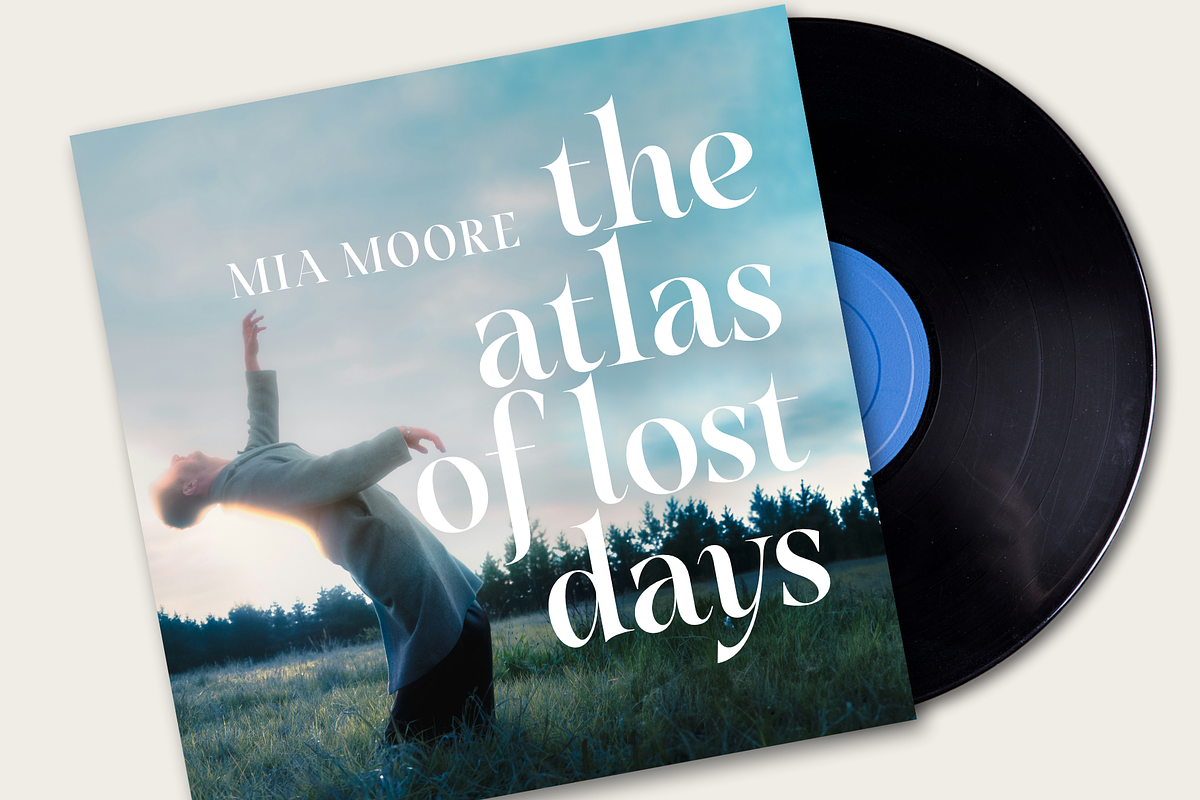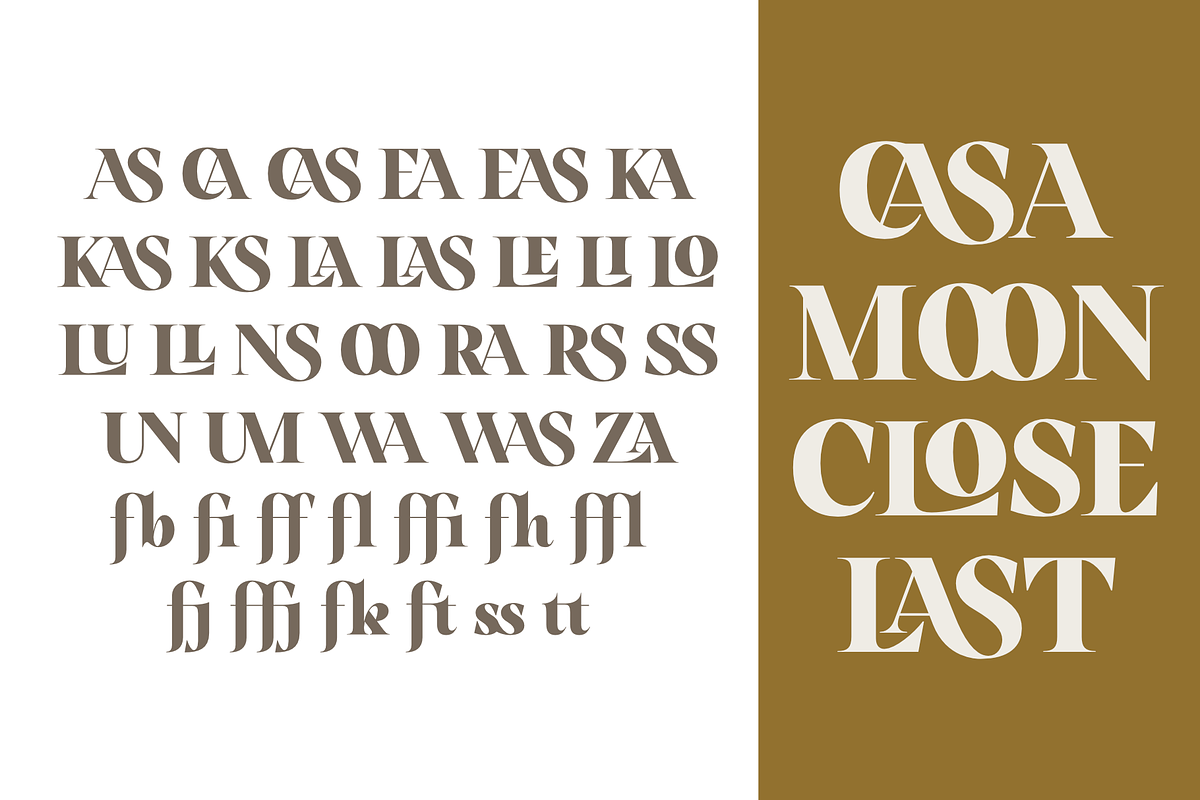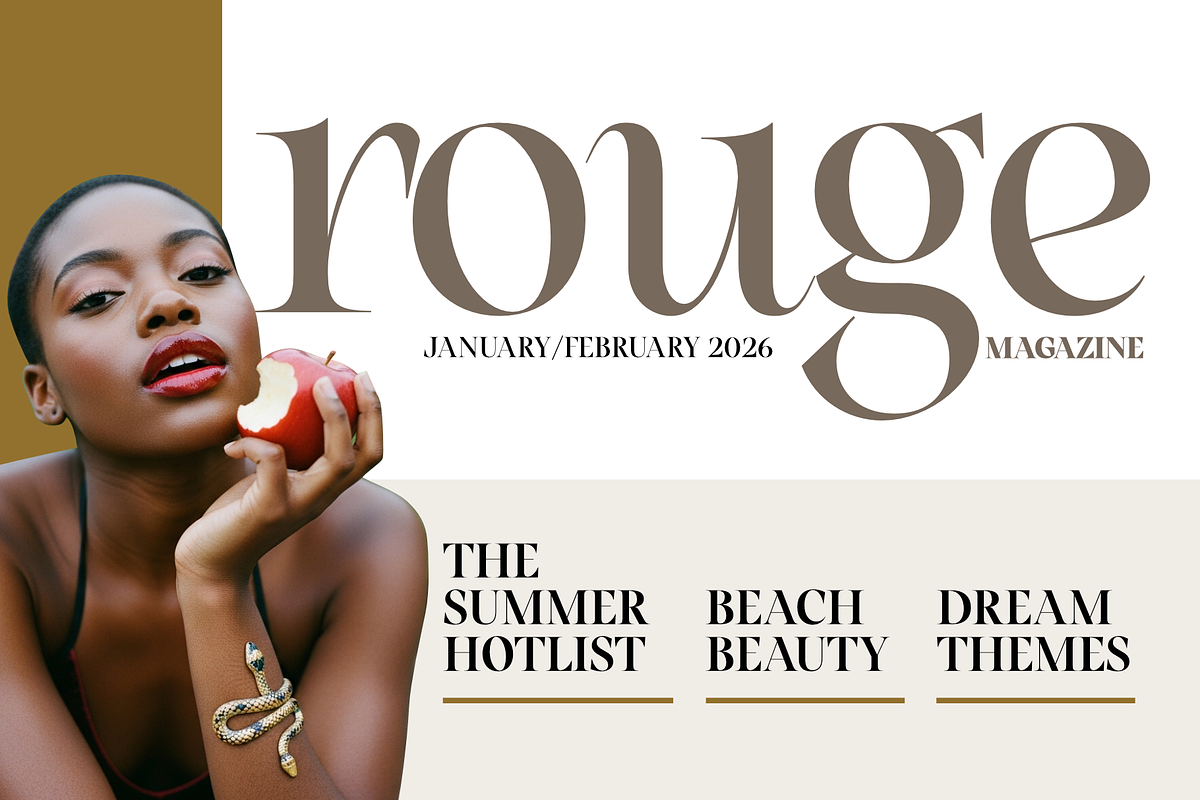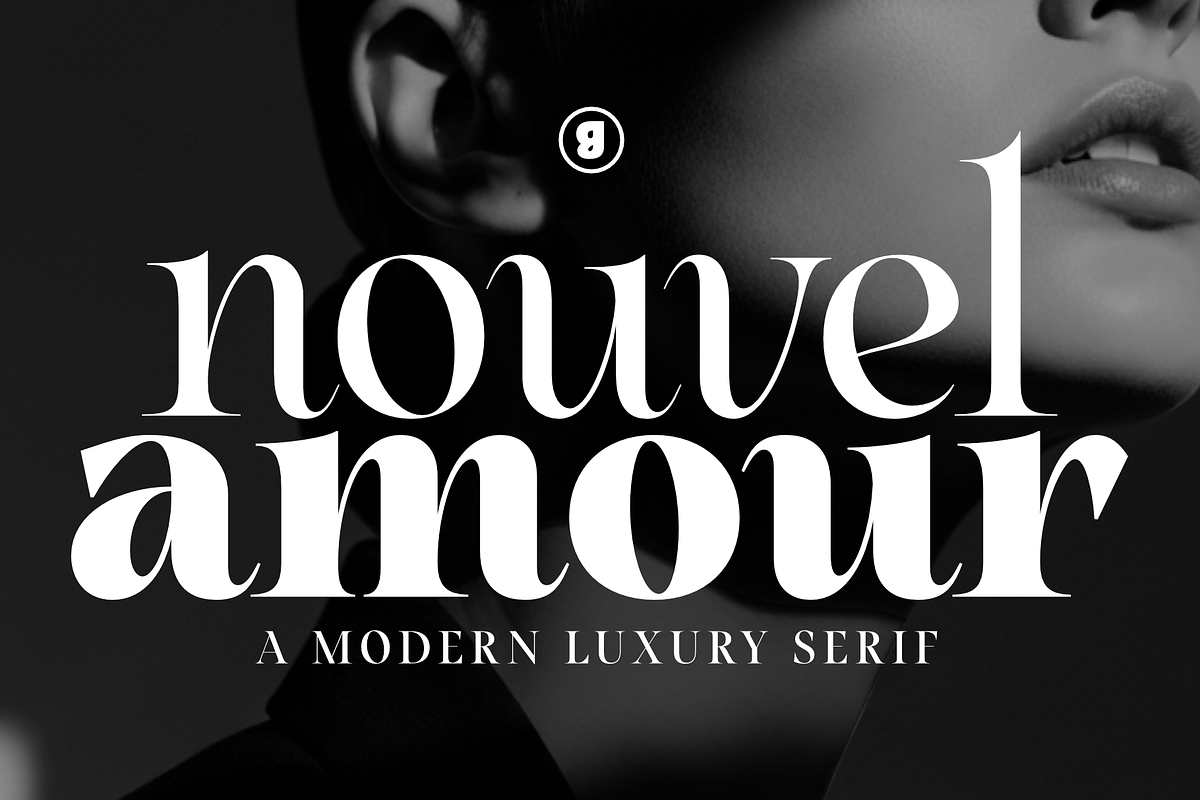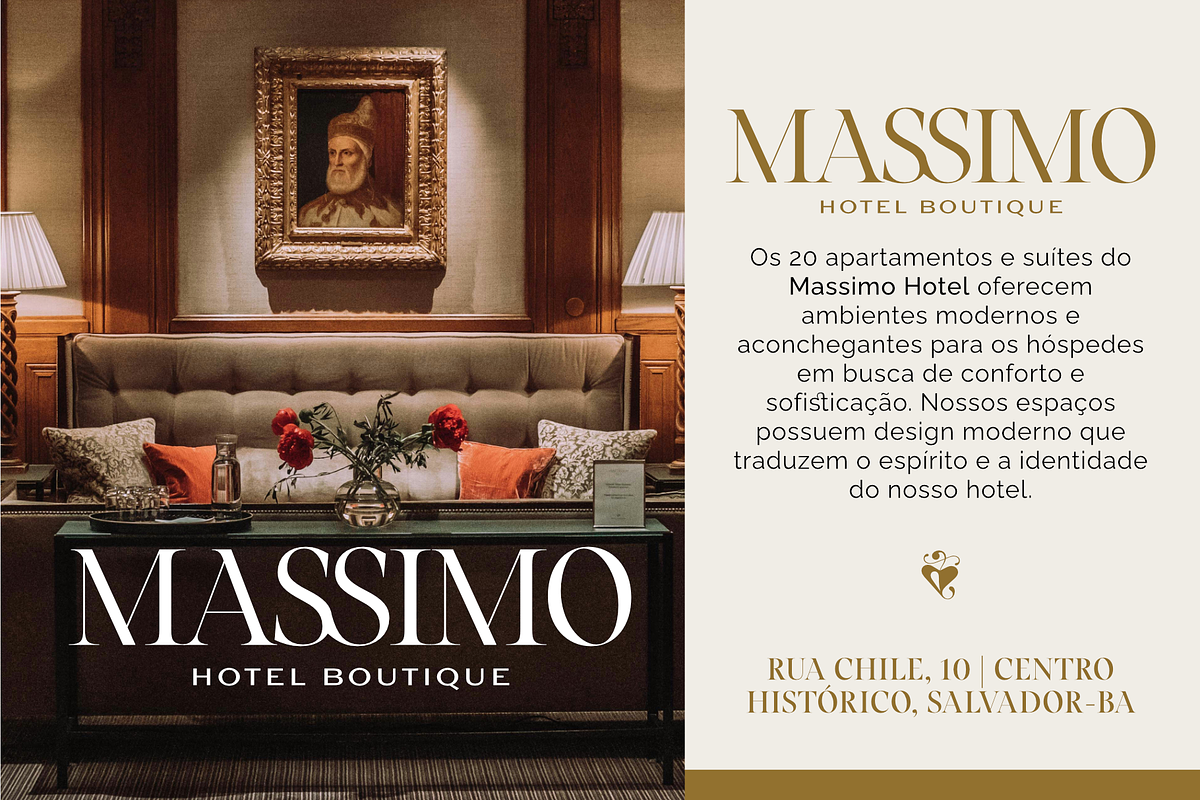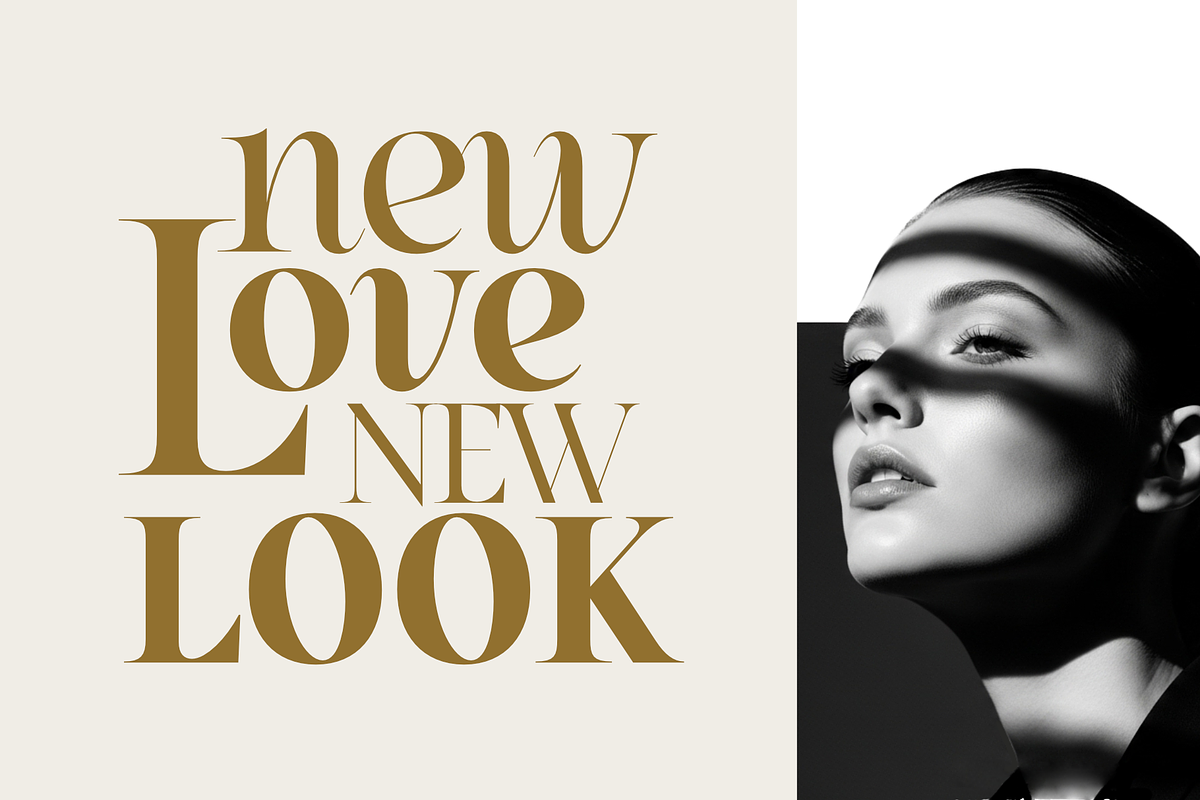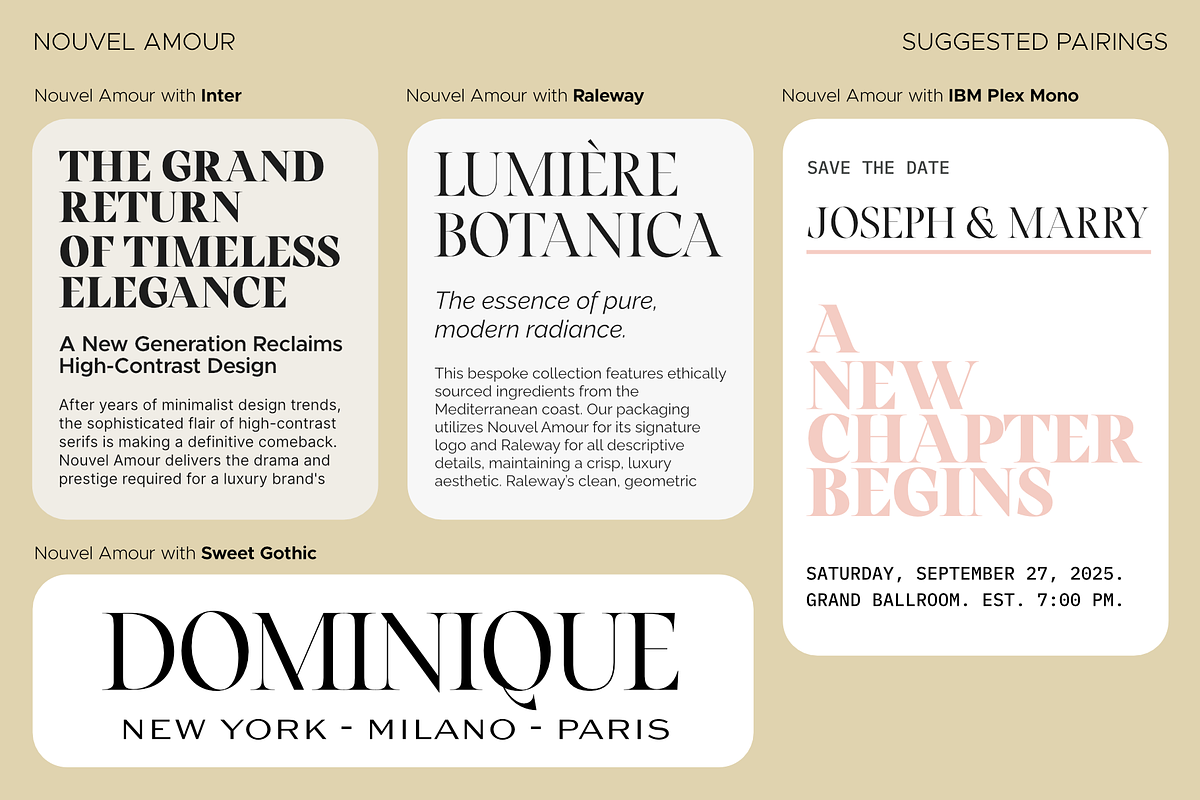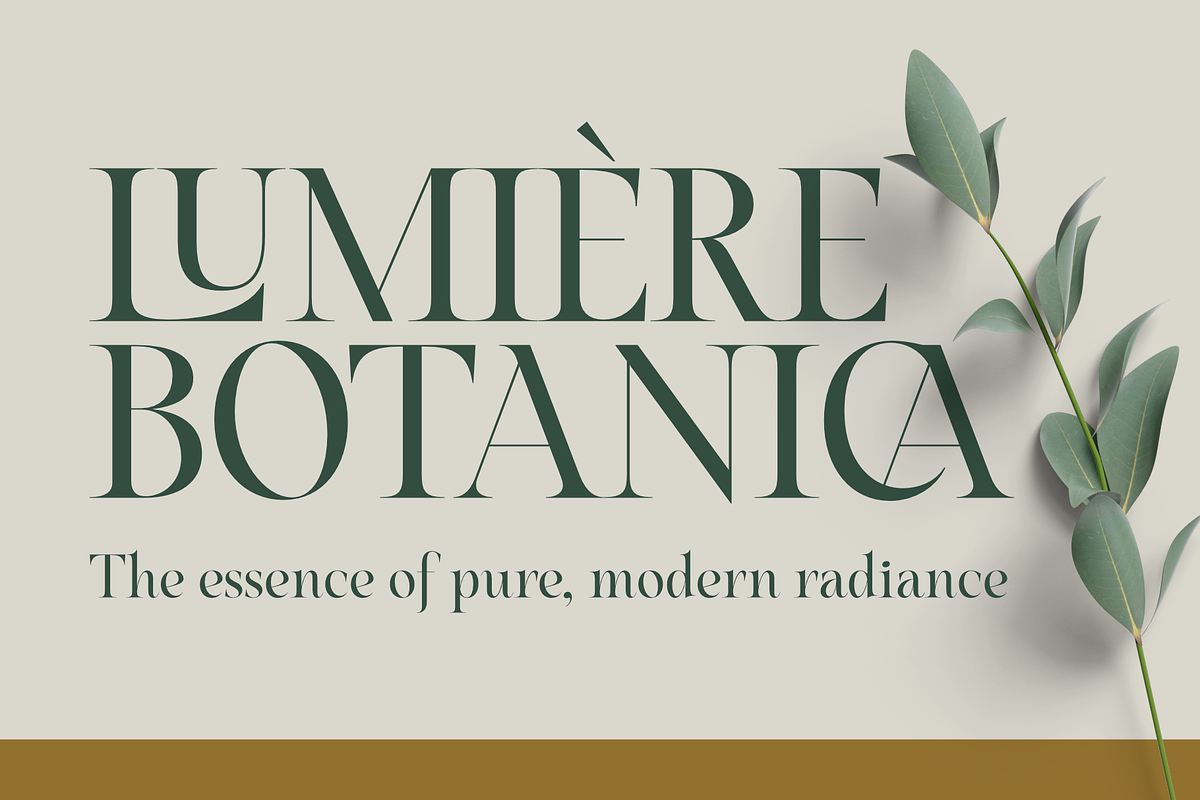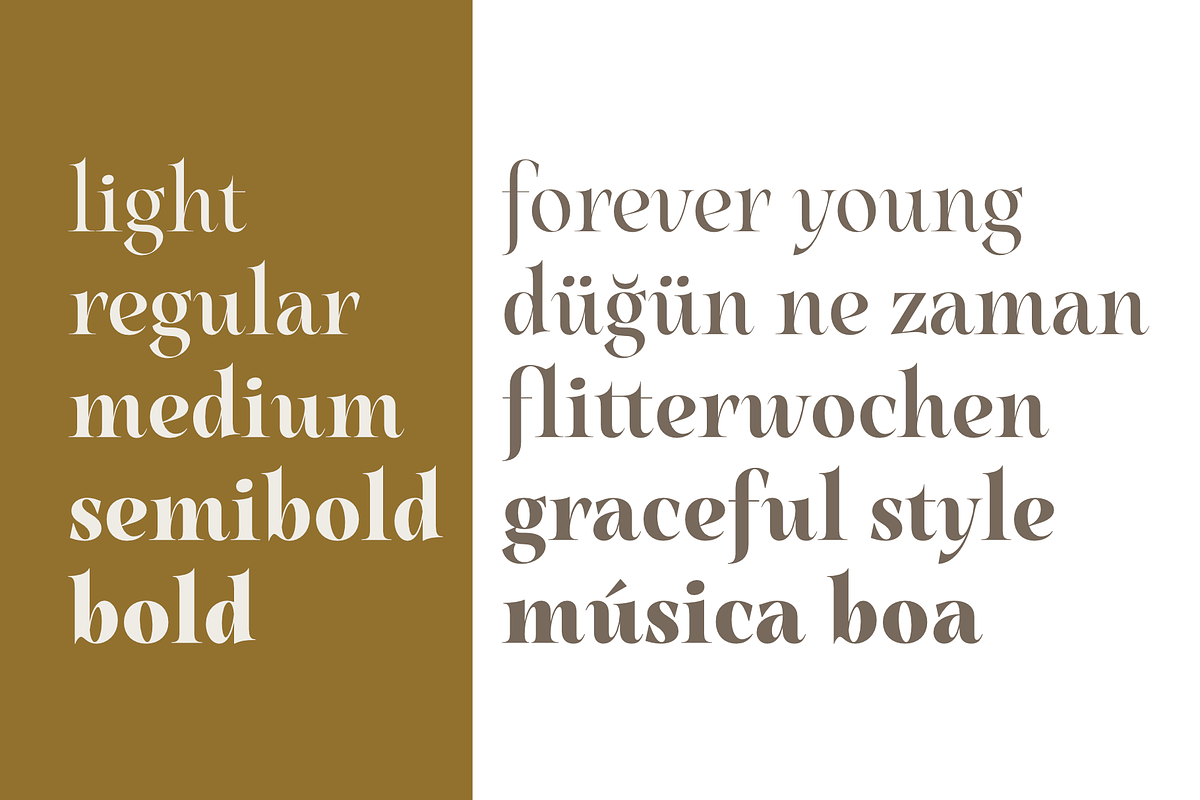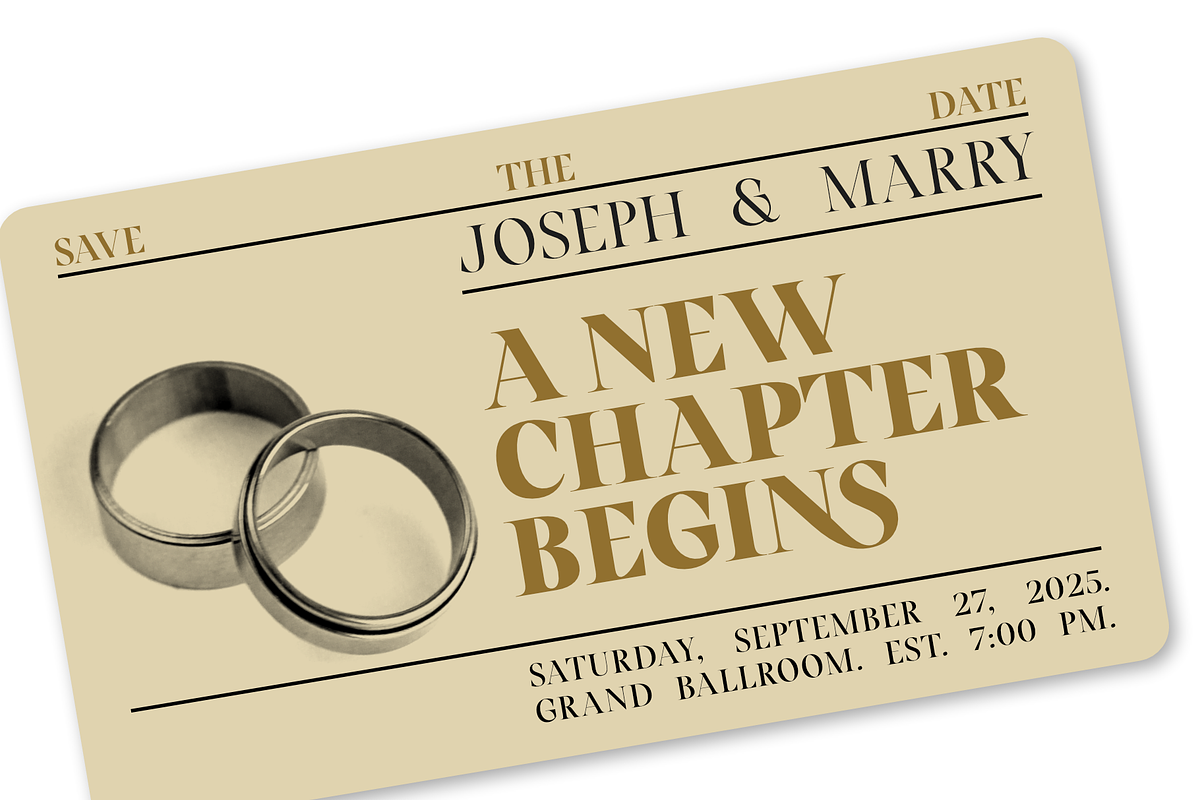
Nouvel Amour – A Modern Luxury Serif
Elevate your designs with the chic, editorial allure of Nouvel Amour.
Meet Nouvel Amour, a high-contrast serif typeface designed for creators who seek immediate sophistication. Balancing classic elegance with a bold contemporary spirit, this font captures the essence of high-fashion magazines and the delicacy of modern romance. Whether you are crafting a distinct brand identity or a memorable wedding suite, Nouvel Amour provides the personality needed to turn short texts and headlines into visual masterpieces.
✨ Why choose Nouvel Amour?
Editorial Aesthetic: With its elegant thin hairlines and impactful thick stems, it is specifically engineered to shine in large sizes (Display), ensuring both readability and style.
Versatile Weights: Available as a complete font family with 5 styles from Light to Bold, allowing you to create perfect visual hierarchy in your layouts and highlight what truly matters
Global Language Support: Don’t let boundaries stop you. Nouvel Amour features an extensive character set supporting multiple languages, including full accentuation for French, German, Spanish, Portuguese, Scandinavian languages, and more.
🎨 Perfect for:
Luxury Branding: Create high-end logos for boutiques, hotels, cosmetics, and jewelry brands.
Editorial Design: Magazine headlines, book covers, and fashion blog layouts.
Wedding & Event Stationery: Invitations, menus, and save-the-dates that require a romantic, refined touch.
Packaging Design: Labels that communicate premium quality and purity.
Social Media: Short quotes and titles that stop the scroll.
- Full set of upper and lowercase glyphs, numbers, and punctuation.
- Extensive multilingual accents.